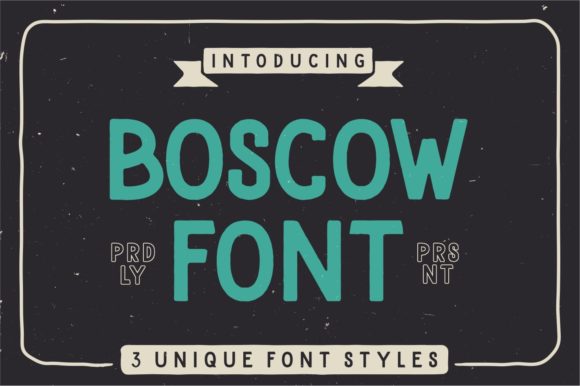
Boscow Font
Boscow is a cool, modern and bold display font. This font is ideal for writing web designs, business cards, or pretty much anything else that requires a fierce touch.